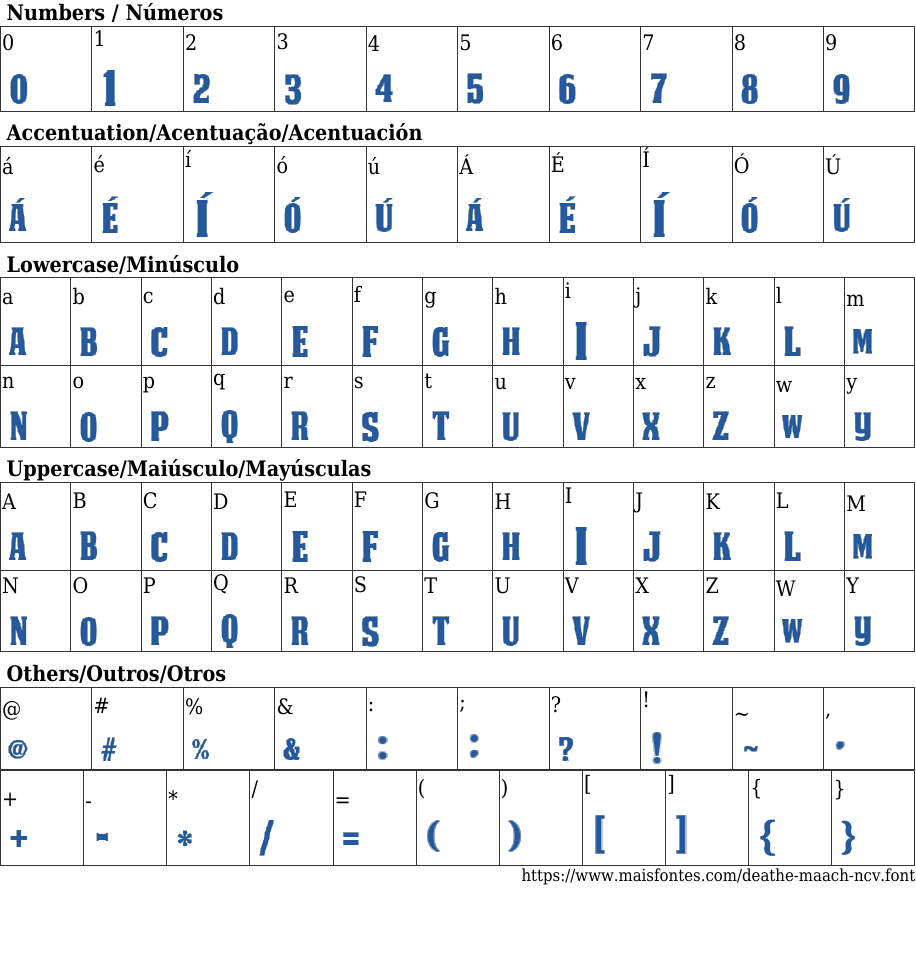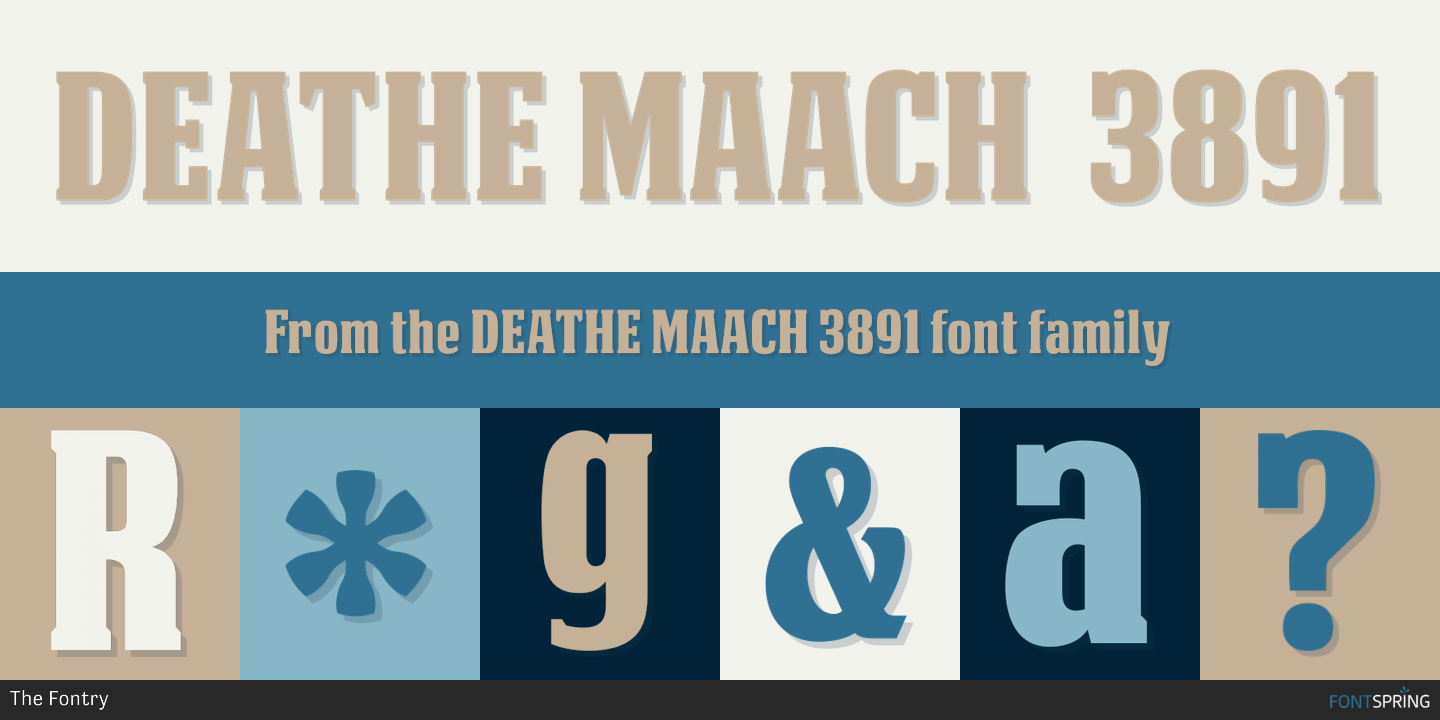
Deathe Maach Ncv Inline Font . Web deathe maach ncv (pronounced deeth mawsh) is the non commercial variation of the commercial font, deathe maach 3891. Web get your very own free download of the deathe maach ncv font, designed and created by fontry.
Web deathe maach ncv (pronounced deeth mawsh) is the non. Web deathe maach ncv (pronounced deeth mawsh) is the non commercial variation of the commercial. It captures an edgy, gritty vibe with its rough.
Deathe Maach Ncv Inline Font - Web get your very own free download of the deathe maach ncv font, designed and created by fontry. Available in both ttf and otf. Web deathe maach font is a fancy, retro font designed by fontry. Web deathe maach ncv (pronounced deeth mawsh) is the non. Web if you wish to use the deathe maach ncv font commercially as downloaded,.
Deathe Maach Ncv Inline Font - Web deathe maach ncv is a distinctive typeface created by michael gene adkins of the fontry. Available in both ttf and otf. Web if you wish to use the deathe maach ncv font commercially as downloaded, a $5 paypal donation is requested. Web get your very own free download of the deathe maach ncv font, designed and created by fontry..
Deathe Maach Ncv Inline Font - Web deathe maach font is a fancy, retro font designed by fontry. Web deathe maach ncv (pronounced deeth mawsh) is the non commercial variation of the commercial font, deathe maach 3891. Web if you wish to use the deathe maach ncv font commercially as downloaded, a $5 paypal donation is requested. Web deathe maach ncv is a distinctive typeface created.
Deathe Maach Ncv Inline Font - Web get your very own free download of the deathe maach ncv font, designed and created by fontry. Web deathe maach font is a fancy, retro font designed by fontry. Web deathe maach ncv (pronounced deeth mawsh) is the non commercial variation of the commercial font, deathe maach 3891. It captures an edgy, gritty vibe with its rough. Web deathe.
Deathe Maach Ncv Inline Font - It captures an edgy, gritty vibe with its rough. Web deathe maach ncv is a distinctive typeface created by michael gene adkins of the fontry. Web deathe maach ncv (pronounced deeth mawsh) is the non commercial variation of the commercial. Web if you wish to use the deathe maach ncv font commercially as downloaded, a $5 paypal donation is requested..
Deathe Maach Ncv Inline Font - Web deathe maach ncv (pronounced deeth mawsh) is the non commercial variation of the commercial font, deathe maach 3891. Web if you wish to use the deathe maach ncv font commercially as downloaded, a $5 paypal donation is requested. Web deathe maach ncv (pronounced deeth mawsh) is the non commercial variation of the commercial. Web get your very own free.
Deathe Maach Ncv Inline Font - Web get your very own free download of the deathe maach ncv font, designed and created by fontry. Web if you wish to use the deathe maach ncv font commercially as downloaded, a $5 paypal donation is requested. Web deathe maach font is a fancy, retro font designed by fontry. It captures an edgy, gritty vibe with its rough. Web.
Deathe Maach Ncv Inline Font - It captures an edgy, gritty vibe with its rough. Available in both ttf and otf. Web deathe maach ncv (pronounced deeth mawsh) is the non commercial variation of the commercial. Web deathe maach ncv is a distinctive typeface created by michael gene adkins of the fontry. Web if you wish to use the deathe maach ncv font commercially as downloaded,.
Deathe Maach Ncv Inline Font - Web deathe maach ncv (pronounced deeth mawsh) is the non. Available in both ttf and otf. Web get your very own free download of the deathe maach ncv font, designed and created by fontry. Web deathe maach font is a fancy, retro font designed by fontry. Web deathe maach ncv (pronounced deeth mawsh) is the non commercial variation of the.
Deathe Maach Ncv Inline Font - Available in both ttf and otf. Web get your very own free download of the deathe maach ncv font, designed and created by fontry. Web deathe maach ncv is a distinctive typeface created by michael gene adkins of the fontry. Web deathe maach font is a fancy, retro font designed by fontry. Web deathe maach ncv (pronounced deeth mawsh) is.
Deathe Maach Ncv Inline Font - Deathe maach font is available for free download for noncommercial, personal. Web deathe maach ncv (pronounced deeth mawsh) is the non commercial variation of the commercial. Web deathe maach ncv (pronounced deeth mawsh) is the non. Available in both ttf and otf. Web deathe maach ncv is a distinctive typeface created by michael gene adkins of the fontry.
Deathe Maach Ncv Inline Font - Web deathe maach ncv is a distinctive typeface created by michael gene adkins of the fontry. It captures an edgy, gritty vibe with its rough. Web deathe maach ncv (pronounced deeth mawsh) is the non commercial variation of the commercial. Web deathe maach font is a fancy, retro font designed by fontry. Web deathe maach ncv (pronounced deeth mawsh) is.